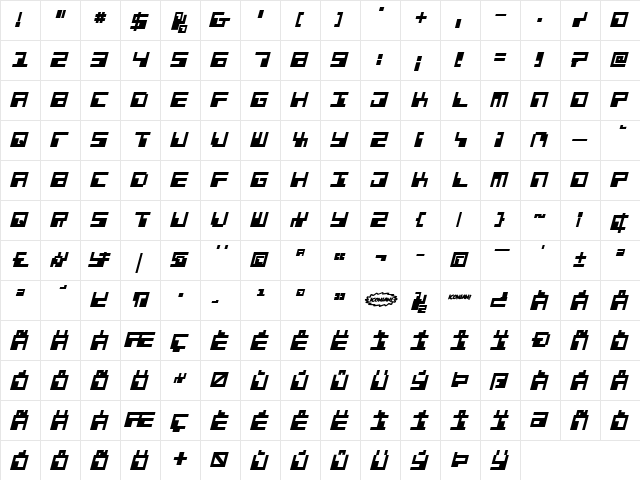
Phaser Bank Bold Italic Bold Italic
Design Context for Phaser Bank Bold Italic Typeface
Phaser Bank Bold Italic is a composed and adaptable typeface that performs quietly and consistently across a wide range of design contexts. Its italic angle brings a sense of urgency and motion to the letterforms. Its bold stroke weight gives it real presence on the page.
Pro Tip: Use Phaser Bank Bold Italic for emphasis, pull quotes, and subheadings where its slanted energy can add rhythm to the layout.